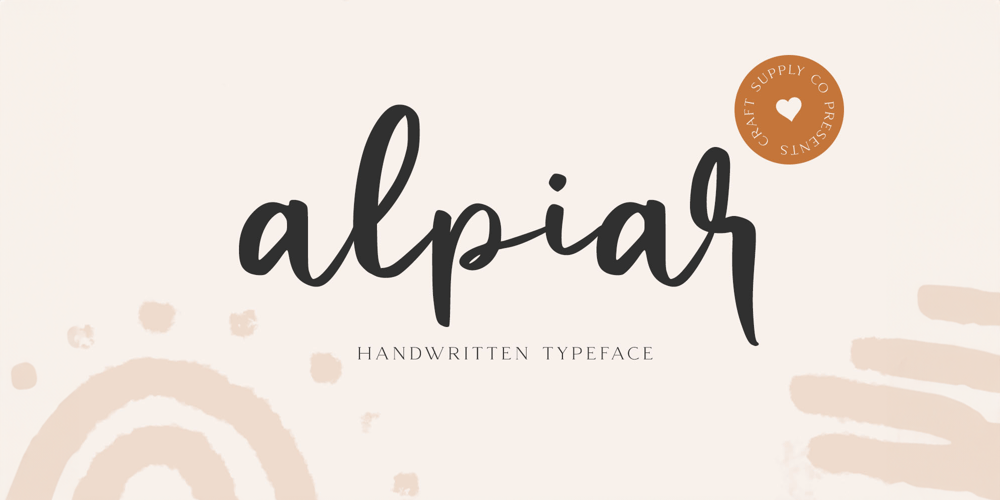
Alpiar
Alpiar font
Alpiar Font Family was designed by Trio Nazzar Saputra, Wahyu Hadi Yuana and published by Craft Supply Co. Alpiar contains 2 styles and family package options. Alpiar – Handwritten Typeface is an handwritten script font based on the expression of real handwriting. Alpiar – Handwritten Typeface will work perfectly for fashion, e-commerce brands, trend blogs, wedding boutiques or any business that wants to appear upscale and chic.